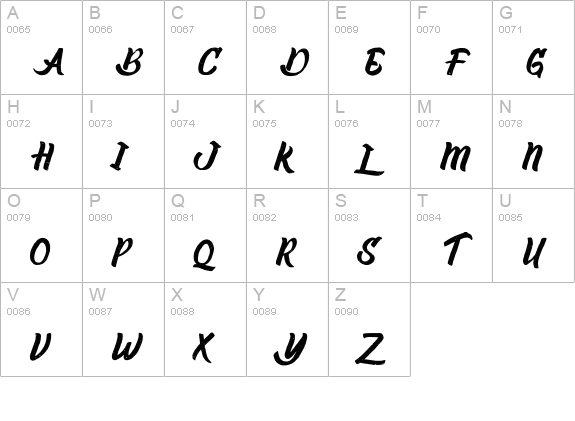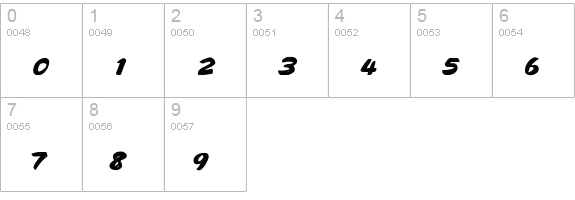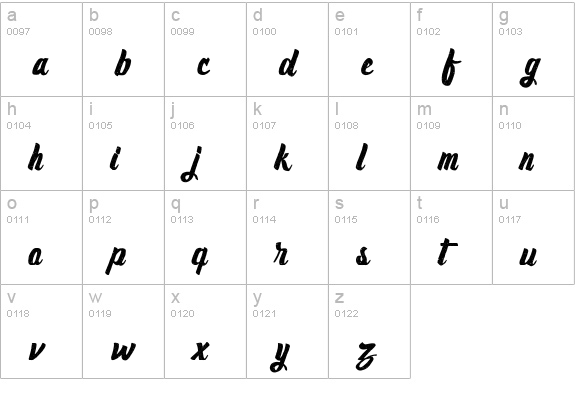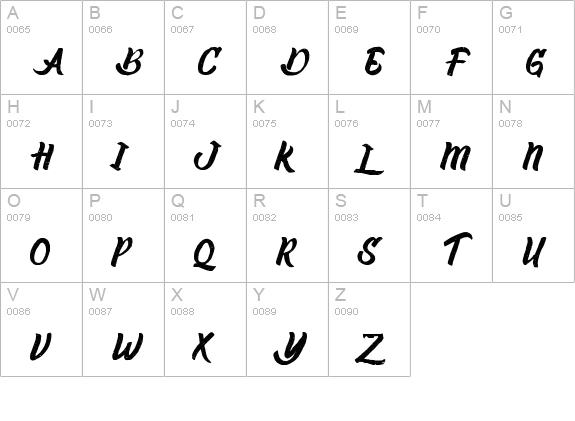
Claiborne is a free for personal use font in the Script > Handwritten category, designed by madeDeduk. It has been downloaded 612 times and is available for Windows, Mac and Linux.
Claiborne font is a stylish and sophisticated typeface that exudes elegance and charm. With its sleek lines and graceful curves, Claiborne is perfect for adding a touch of class to any design project. This versatile font is suitable for a wide range of applications, from invitations and announcements to branding and advertising.